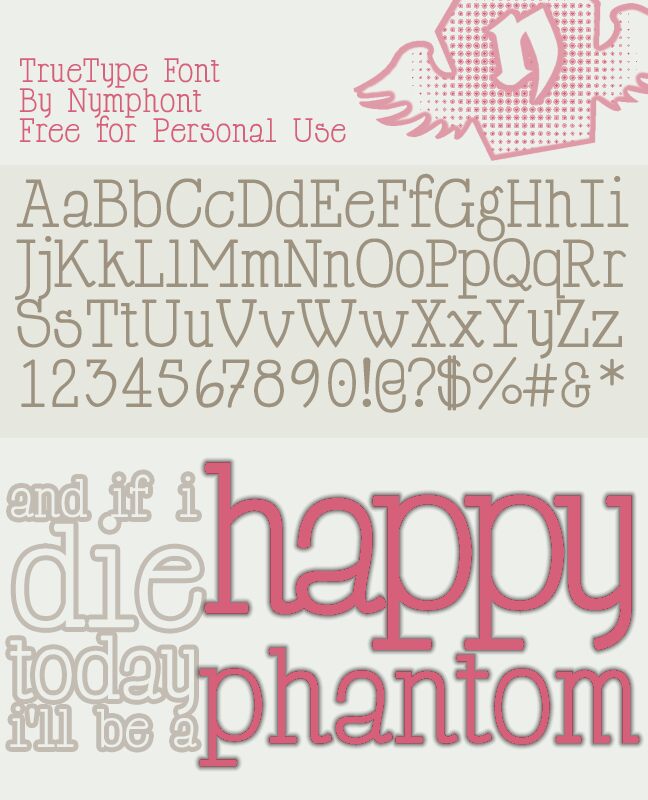
Happy Phantom Bold Italic by Lauren Thompson of Nymphont is a free bold italic serif with theatrical sweep and emphatic weight. The strongly slanted letters combine broad, flared serifs with deep curves and marked changes between thick and thin strokes. Rounded joins and pointed details keep the dense forms lively with a slightly mischievous edge.
It fits both fashion packaging and exuberant music posters. In a logo, illustrated badge, or event graphic, the lettering can become part of the emblem itself, with its sweeping shapes supplying the central decorative motif rather than a neutral caption.
Casual & informal slab serif designed & made into font form by by Lauren Thompson, "Nymphont" July 8, 2009. Inspired to create this typeface after creating a decorative hand-drawn slab serif font, "LT Chickenhawk."